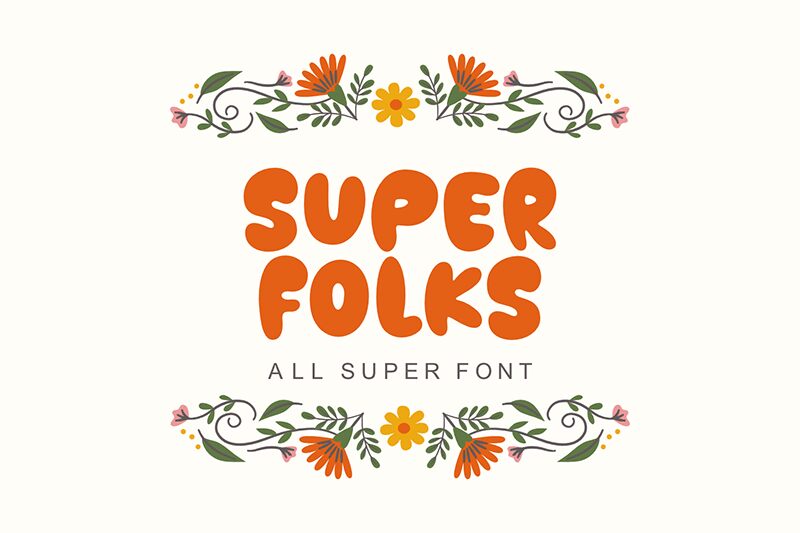
Super Folks
Super Folks font by fsuarez913 brings a touch of cartoonish fun to your designs with its bold display style. This free font boasts retro-inspired, bubbly, and rounded forms that contribute to an overall friendly and approachable feel. Its lively appearance makes it versatile for various design contexts.
Use Supper Folks in cartoons, comic books, children’s book covers, games involving young ages, custom crafts for kids such as birthday or invitation cards; advertising posters and more! The font may also be used digitally on websites and mobile applications or simply incorporated into animation or video content.